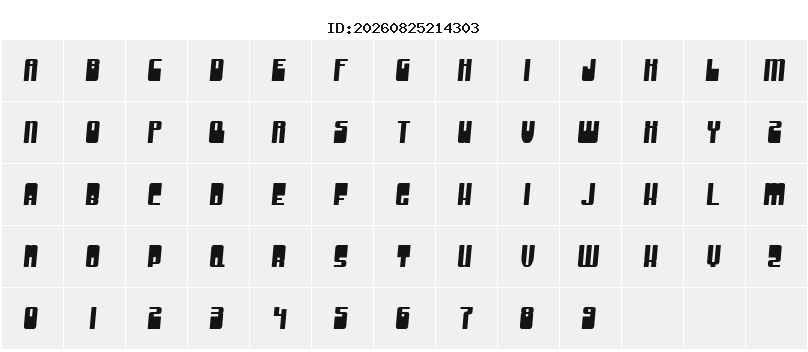
• Font Name: SF Groove Machine
• Full Font Name: SF Groove Machine
About SF Groove Machine.ttf
SF Groove Machine.ttf is a modern, elegant sans-serif font designed for ultimate readability and visual harmony. Perfect for branding, headlines, web design, and print materials.